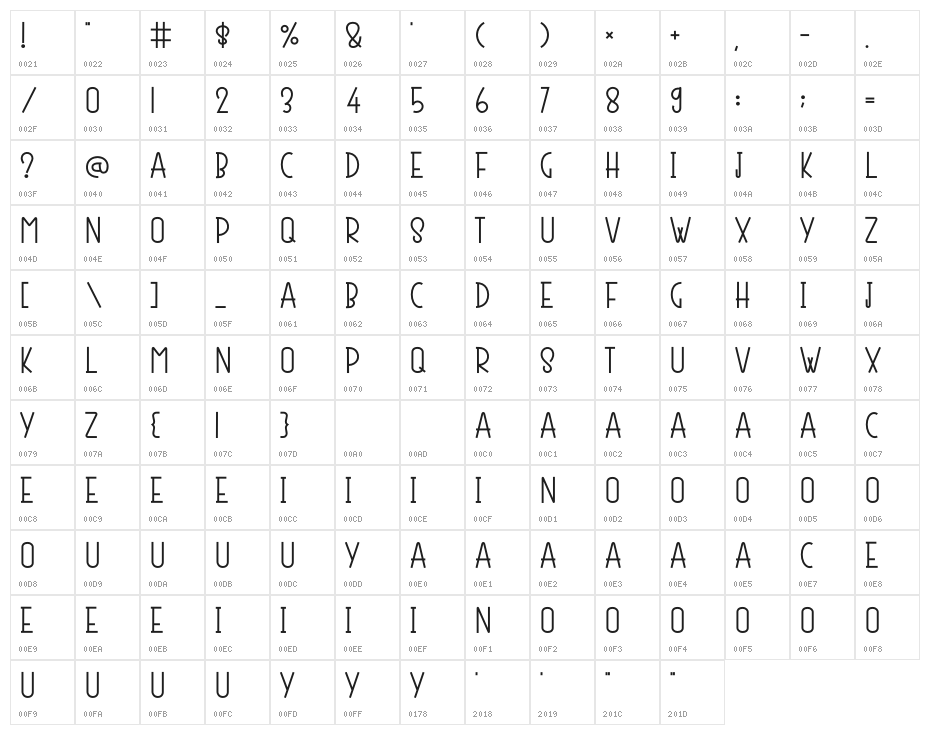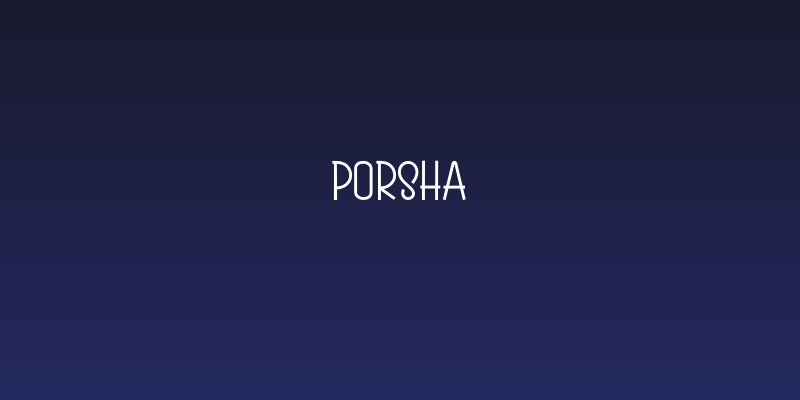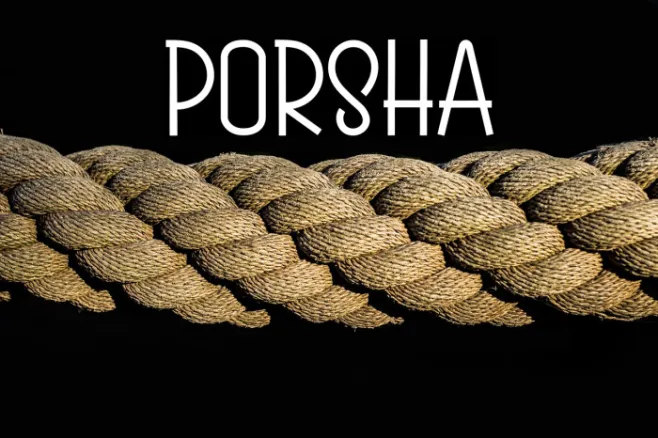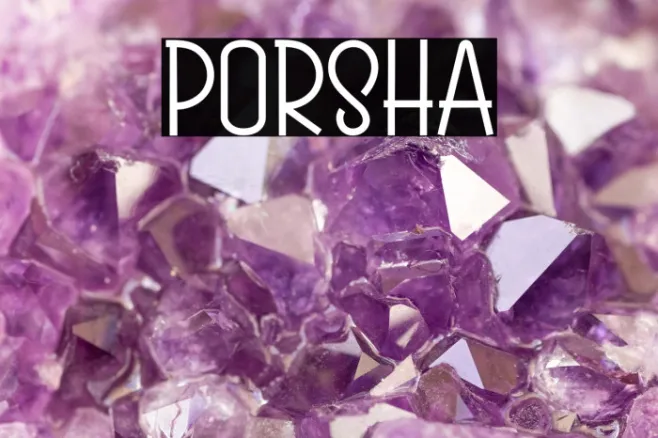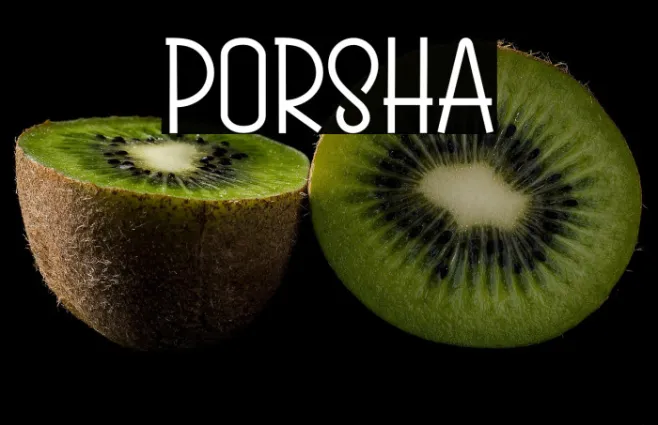
PORSHA Font
PORSHA Description
This font features a unique and modern design with a geometric and slightly condensed appearance. The characters are tall and slender, with a consistent stroke width that gives it a clean and minimalist look. The uppercase letters have a distinctive style, with some characters like 'R' and 'K' having creative, angular cuts that add a touch of sophistication. The lowercase letters maintain the same geometric style, ensuring uniformity across the typeface. The numerals are clear and easy to read, matching the overall aesthetic. Special characters are well-integrated, maintaining the font's sleek and contemporary feel.
| Proposed Projects | Ideal for branding, editorial design, and modern web design projects. |